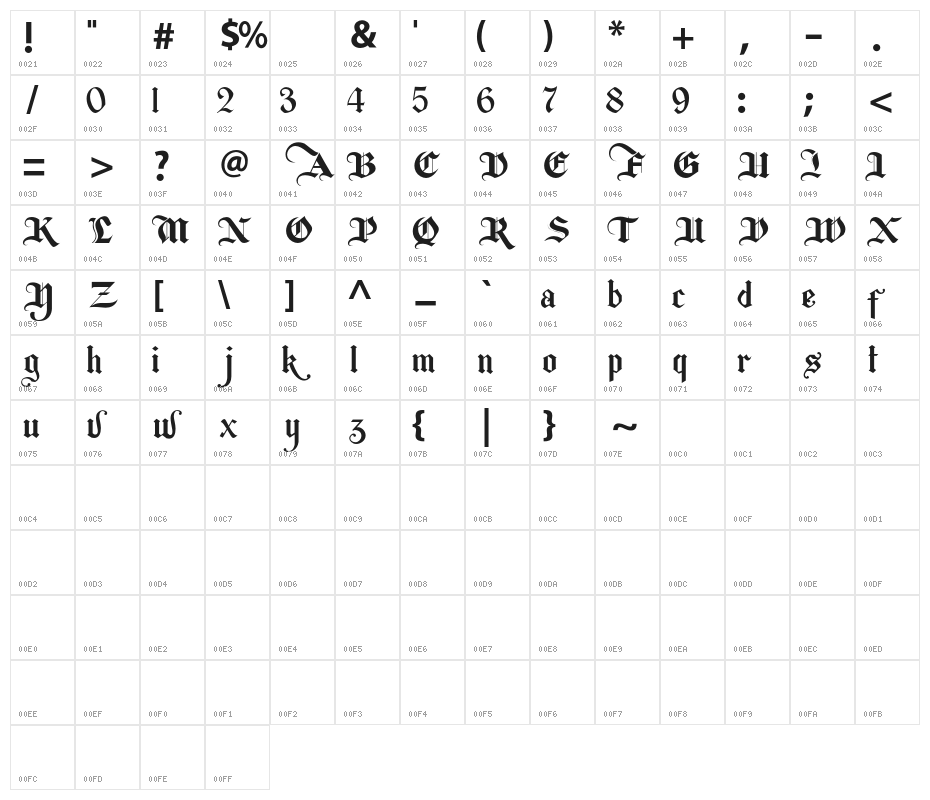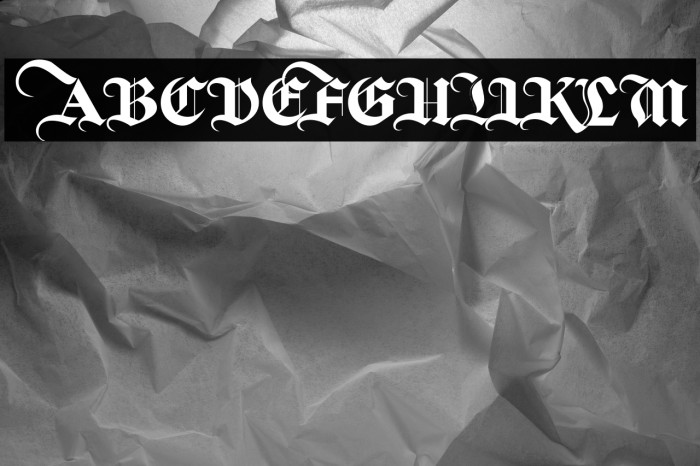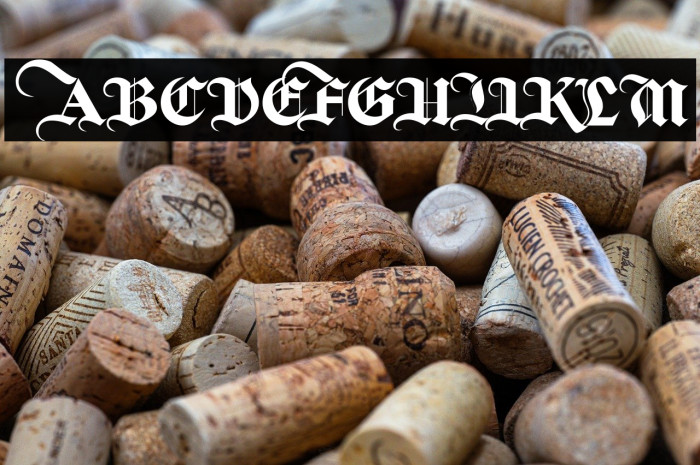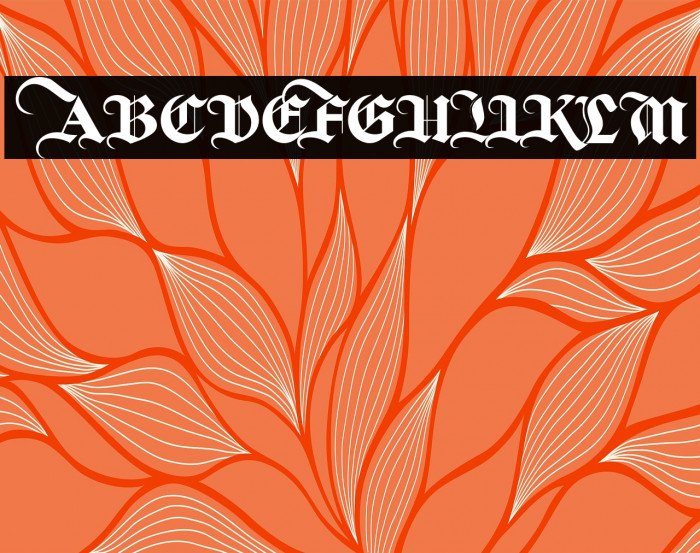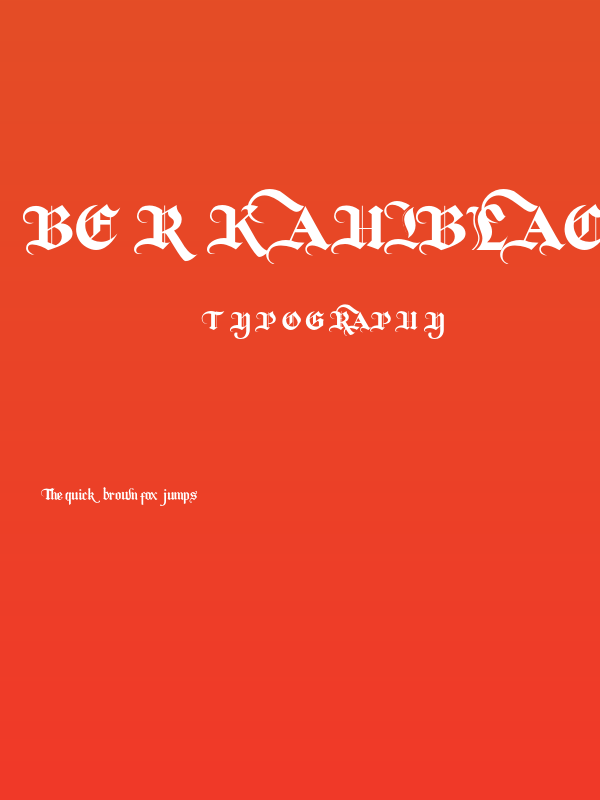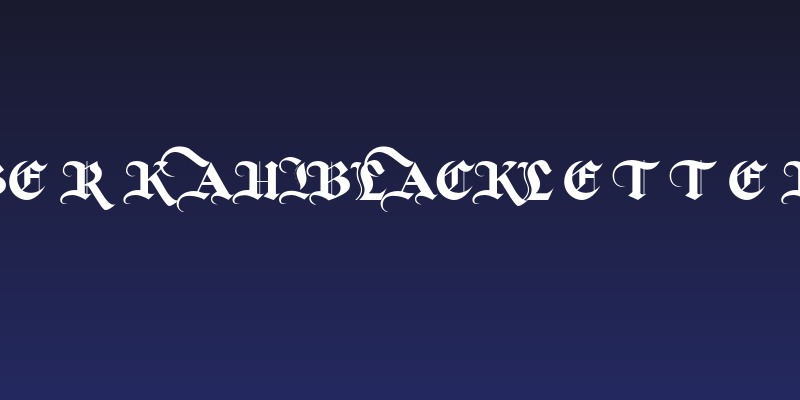
BerkahiBlackletter Font
BerkahiBlackletter Description
This font embodies the traditional Blackletter style, characterized by its intricate and ornate design. The letters feature sharp, angular lines with decorative flourishes, reminiscent of medieval manuscripts. The uppercase letters are particularly elaborate, with extended strokes and embellishments that give them a majestic appearance. The lowercase letters maintain the same level of detail, ensuring consistency across the typeface. The numerals and special characters are equally stylized, integrating seamlessly with the overall aesthetic. This font exudes a sense of historical elegance and grandeur, making it ideal for projects that require a touch of classic sophistication.
| Use Case | Headlines, Logos, Decorative text |
| Proposed Projects | Ideal for historical documents, wedding invitations, book covers, and branding that requires a classic, sophisticated touch. |